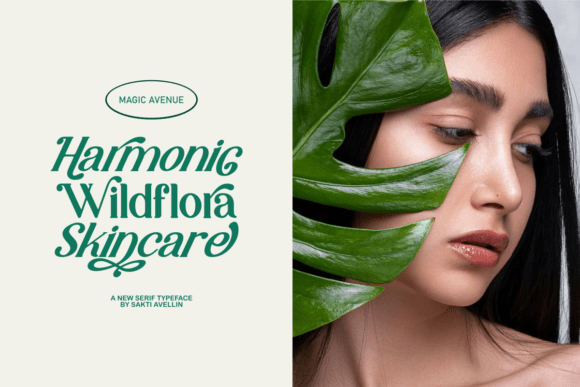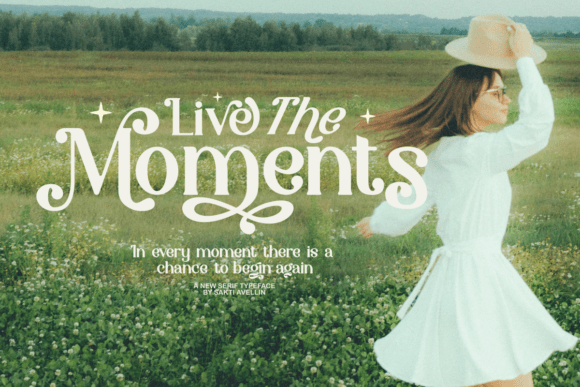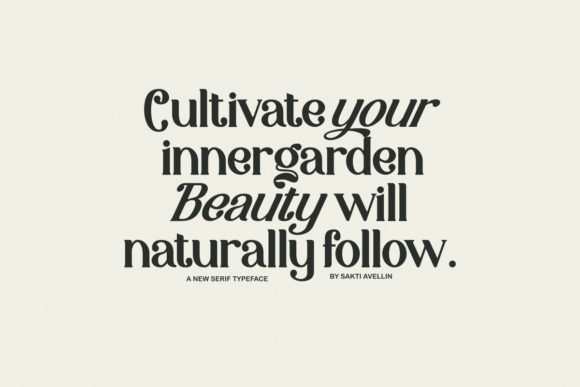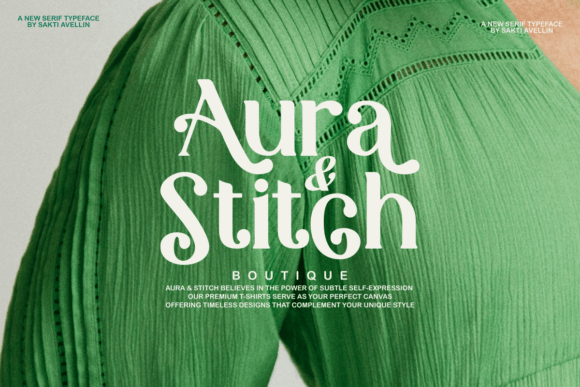
Magic Avenue Font
Magic Avenue typeface is a charming, aesthetic serif font that includes ligatures and alternate characters that allow for variations in writing and design. This provides great artistic flexibility. This font has a friendly, artistic, and slightly “retro” or vintage feel, yet remains modern, suitable for branding and logos, packaging design, invitations and greeting cards, posters and flyers, clothing/merchandise design, and more.